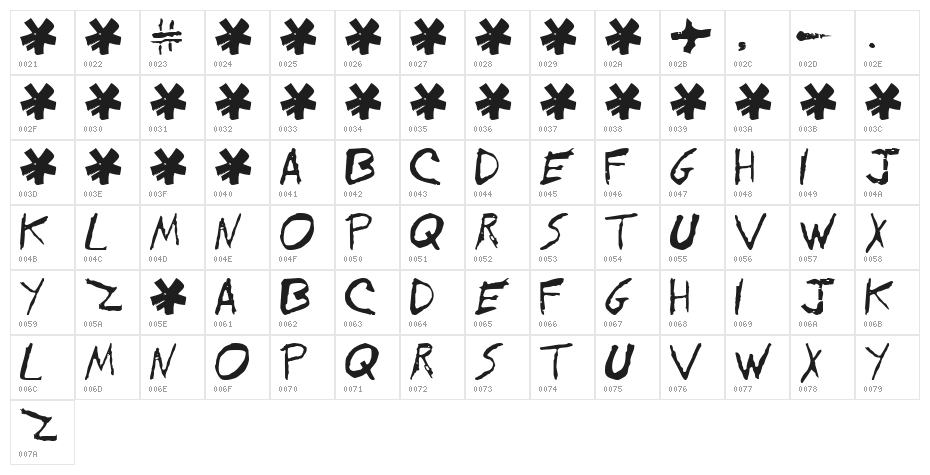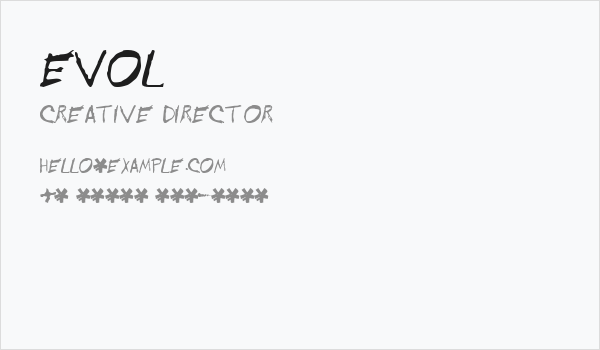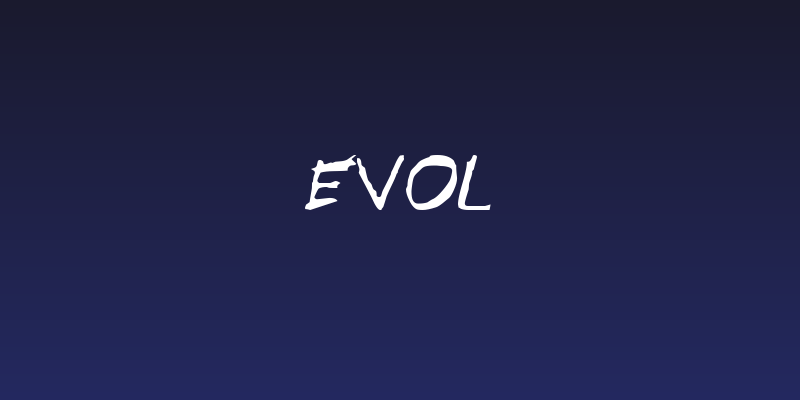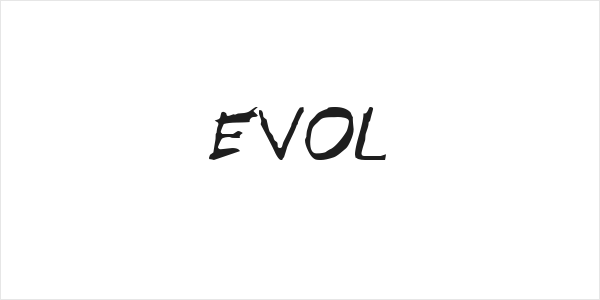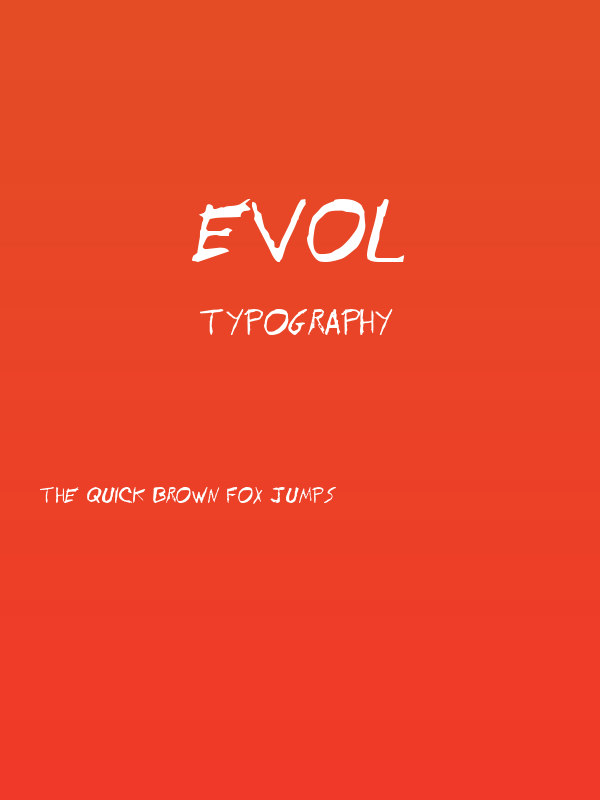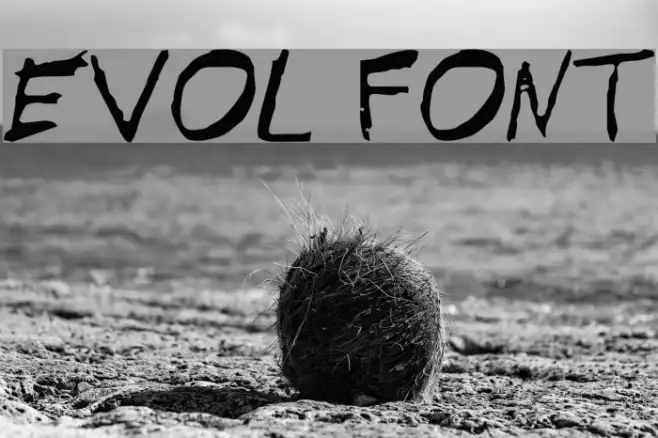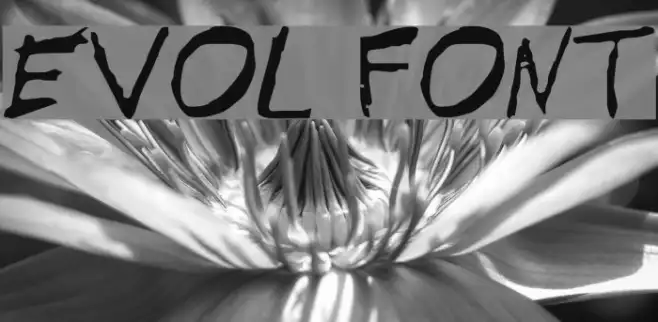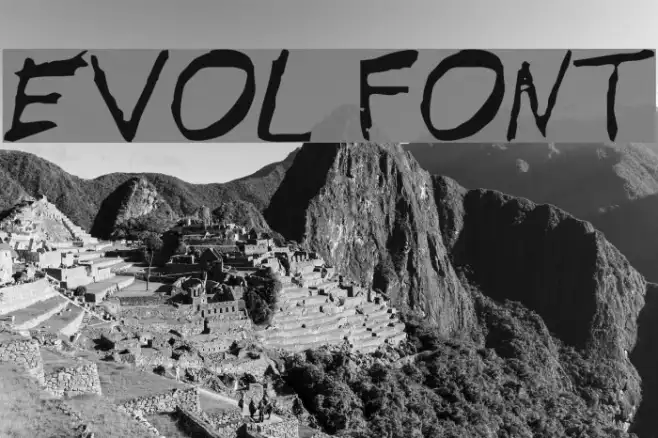
EVOL Font
EVOL Description
This font features a bold, expressive style with a hand-drawn appearance, characterized by uneven strokes and a slightly distressed look. The uppercase letters are prominent and dynamic, conveying a sense of energy and movement. The lowercase letters maintain the same rugged aesthetic, adding to the overall raw and artistic feel. The numbers and special characters are consistent with this theme, making the font suitable for projects that require a bold, impactful statement. Its unique style is perfect for creative designs that aim to capture attention and convey a sense of individuality.
| Version | Version Based on SONIC YOUTH'S "EVOL" album cover. |
| Overall Style | Modern, Artistic |
| Proposed Projects | Ideal for posters, album covers, graffiti art, and edgy branding projects. |